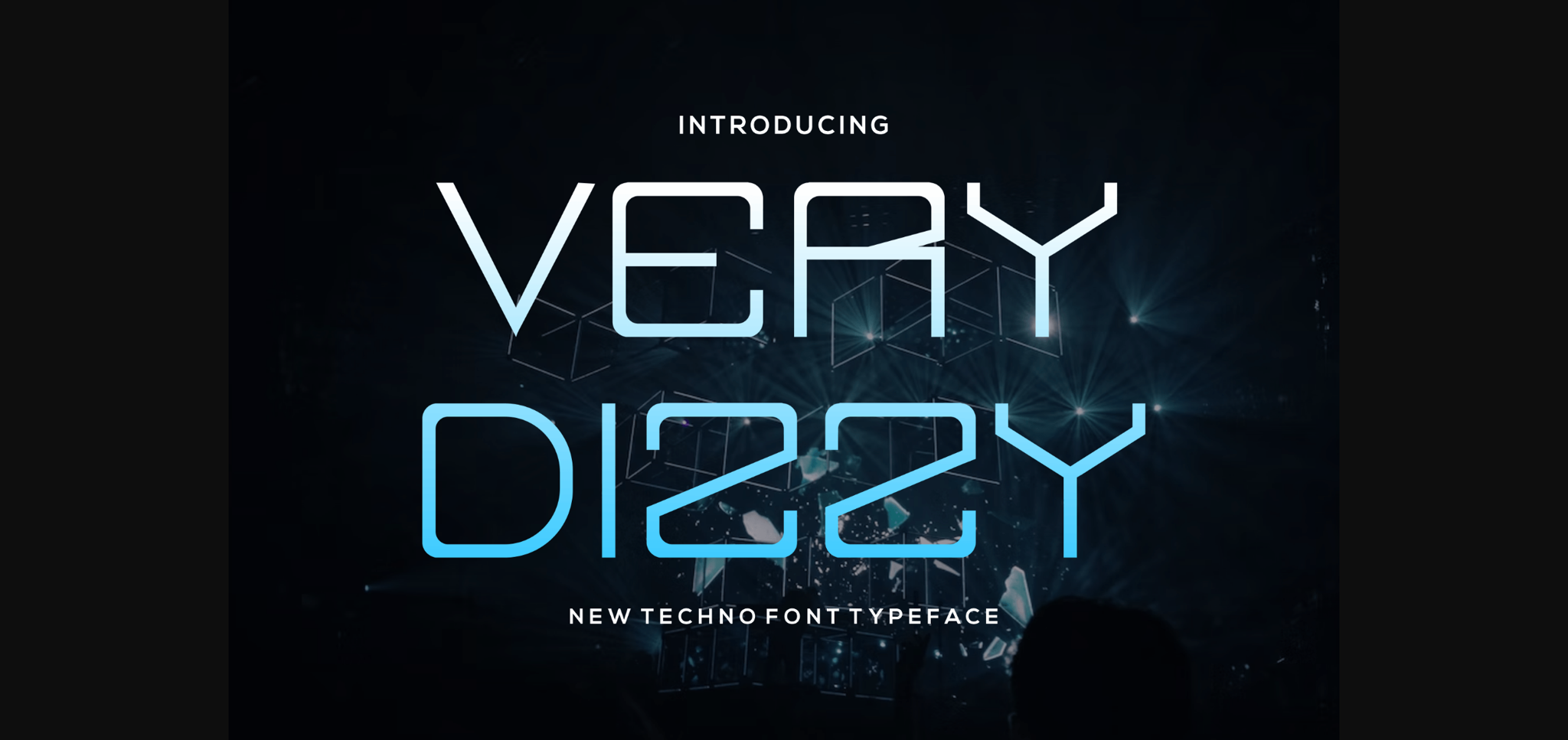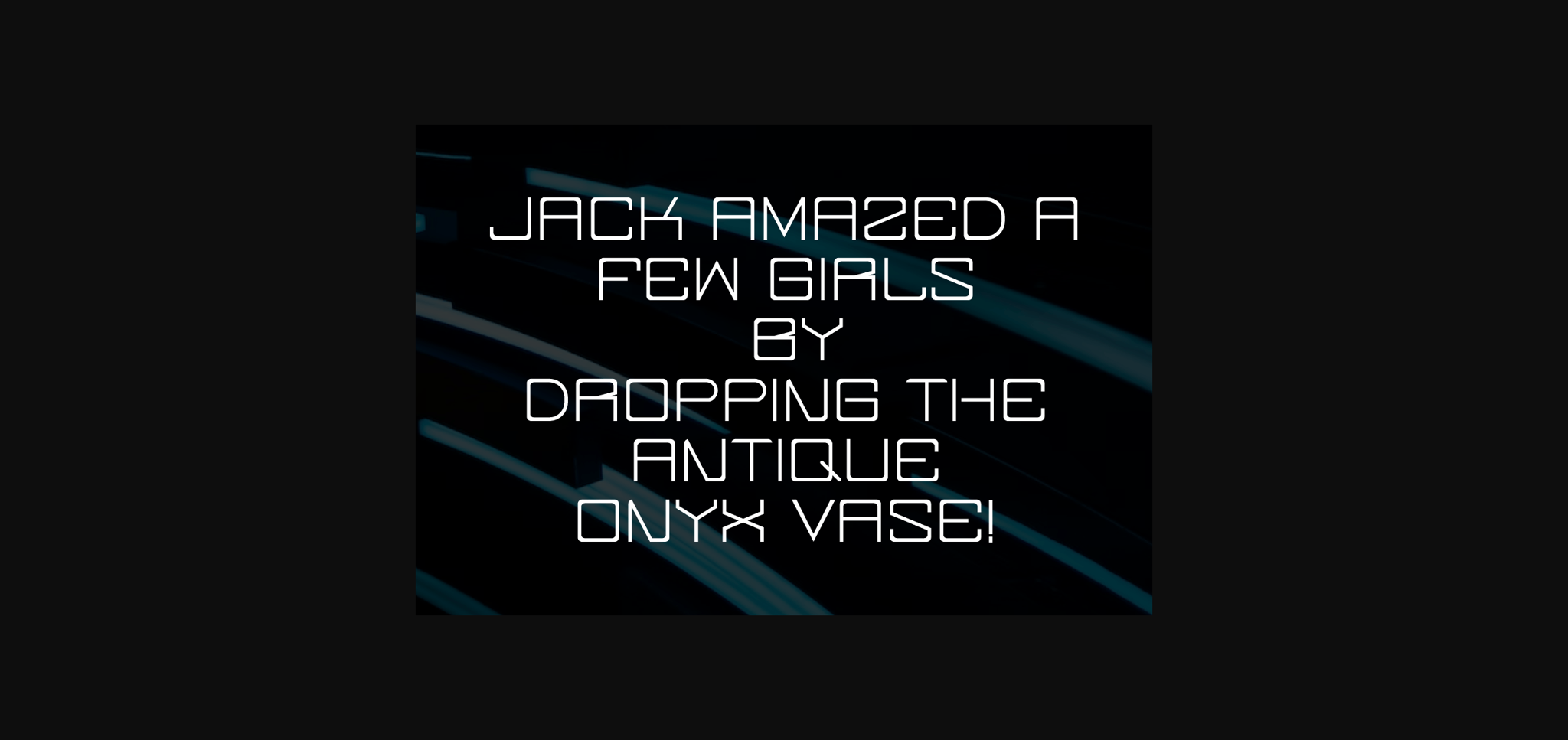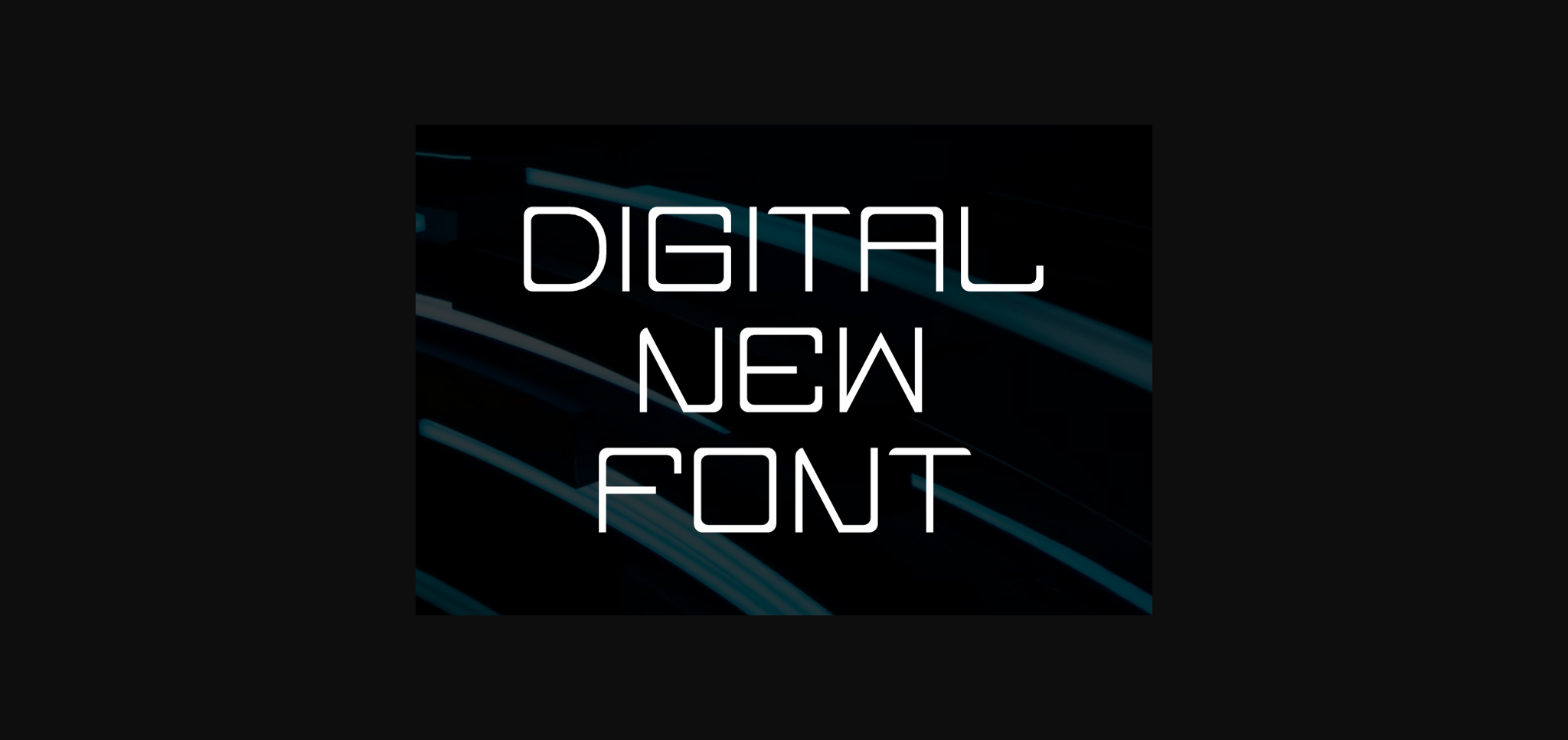
About Verydizzy Font
Verydizzy is a thin sans-serif font that feels beautiful, classy, elegant, and modern. This font is perfectly suited for a wide variety of projects, such as signature, stationery, logo, wedding, typography quotes, magazine or book covers, website headers, clothing, branding, packaging design, and more.